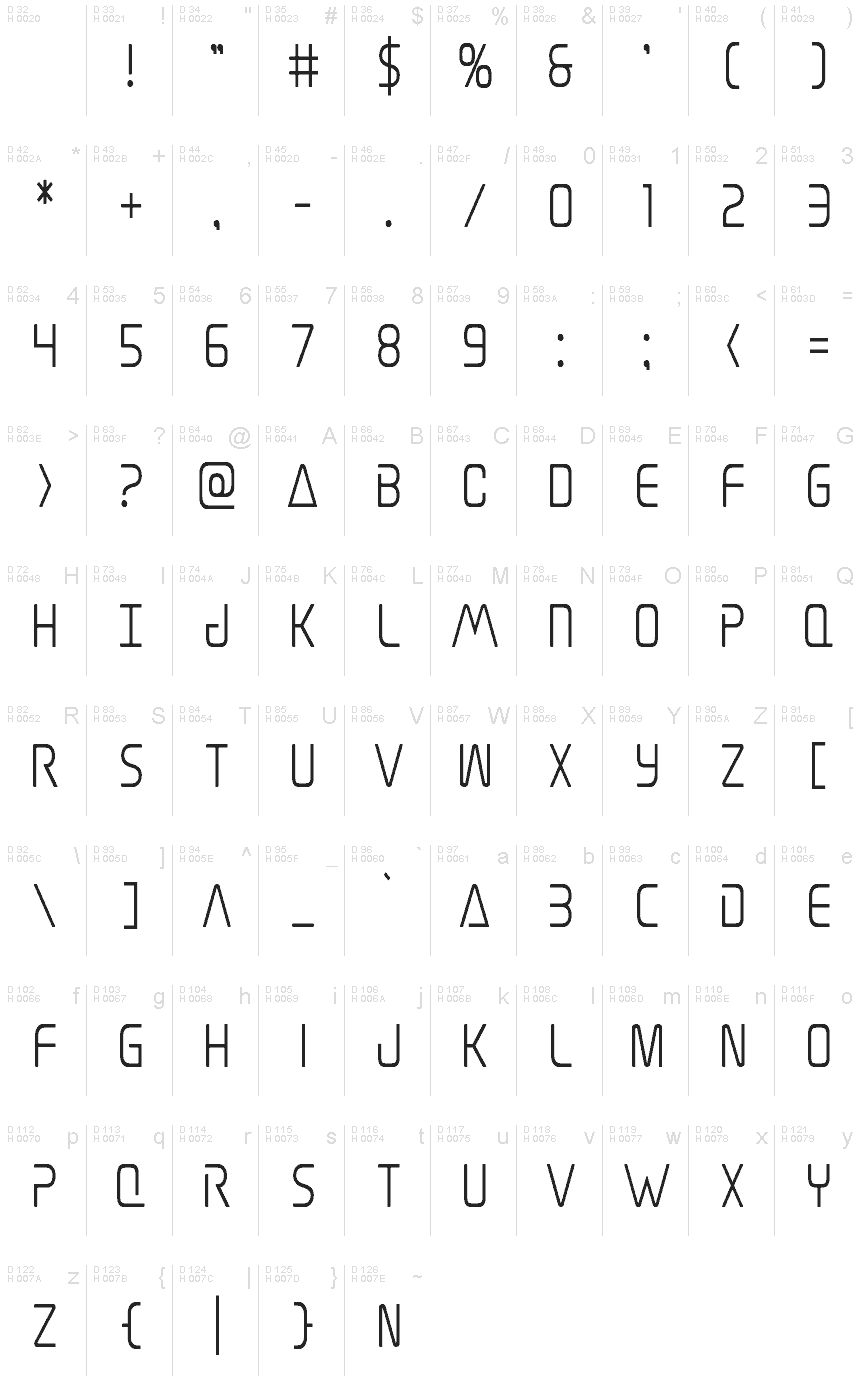
Elite Danger Semi-Bold Condens
Elite Danger Semi-Bold Condensed font by Iconian Fonts is a free techno display font with sleek, futuristic shapes. It combines modern stylistic elements, condensed letters, and geometric shapes for an entirely new visual appeal. The typeface is assertive and imposing as a whole with squared-off or pointed ends that form stylized versions of Latin letters.
It’s ideal for platforms such as movies and game posters, print or digital ads, book covers, sci-fi projects, documentaries, headlines and sub-headings in magazines or websites; even T-shirt designs etc. This is a full version that can be used freely according to its terms.